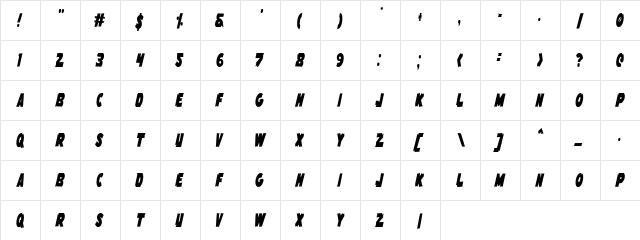
Flying Leatherneck Condensed Condensed
Design Context for Flying Leatherneck Condensed Typeface
Flying Leatherneck Condensed takes a measured approach to typography — its balanced proportions and neutral character make it a reliable workhorse for both digital and print work. The condensed width makes it efficient for tight spaces without sacrificing legibility.